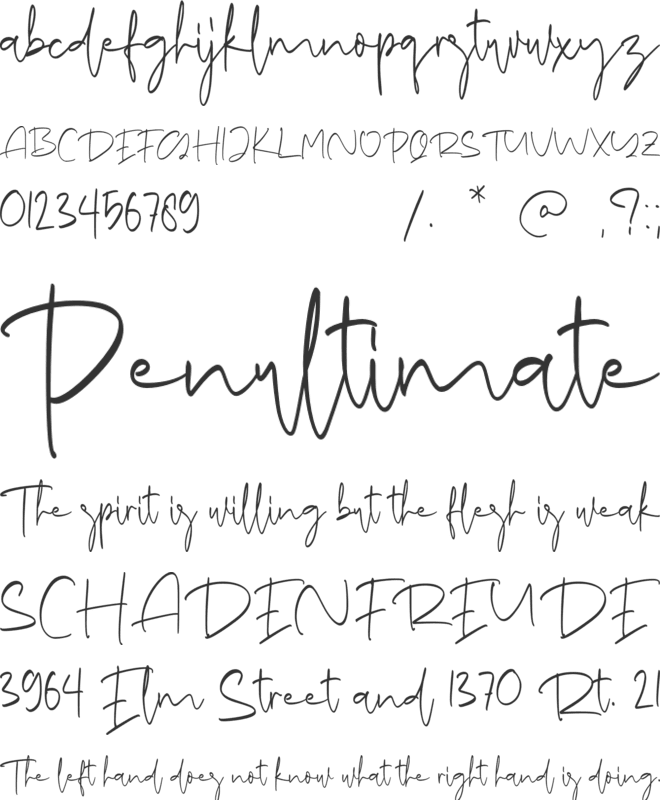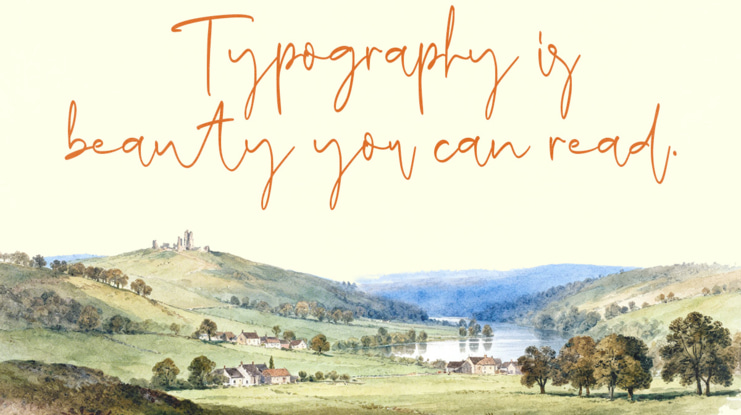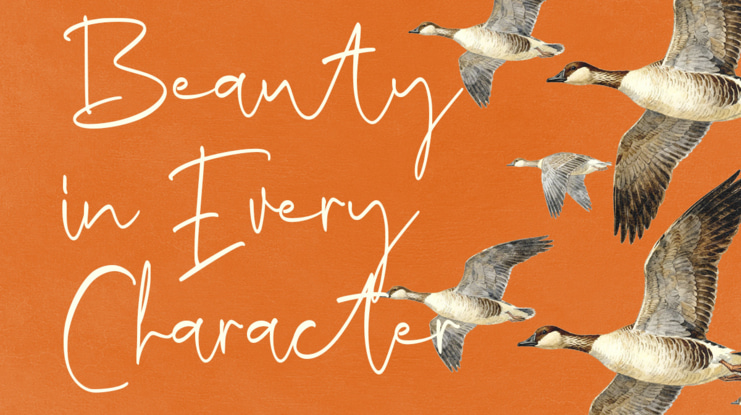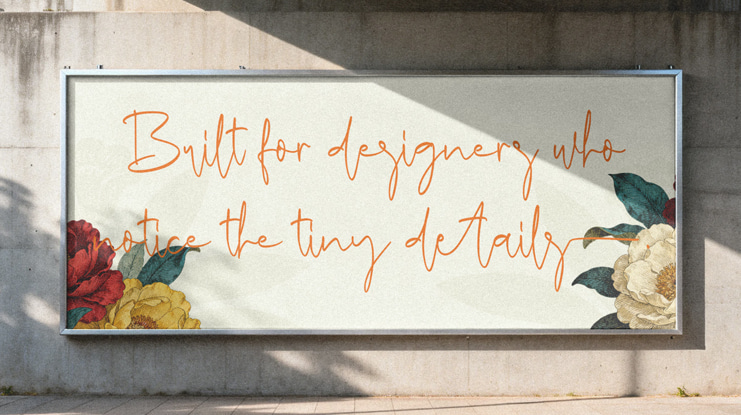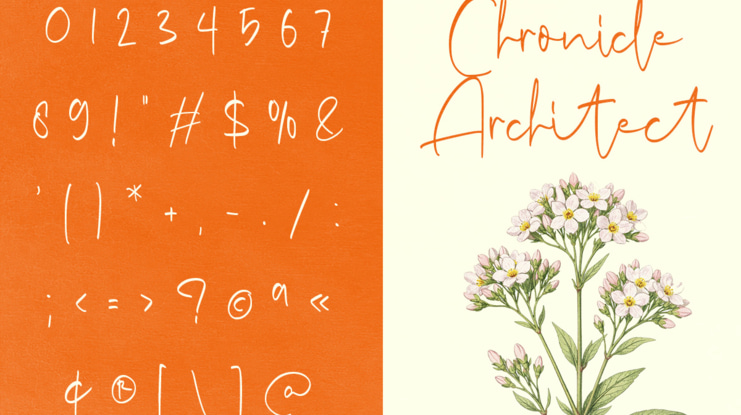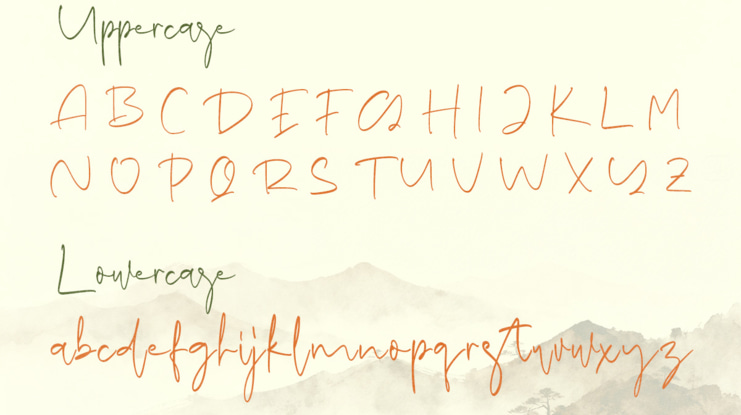
Resetta Milestone Font
Resetta Milestone - Handwritten Signature Script Font
Resetta Milestone is a modern handwritten signature script font designed to deliver elegant, natural, and stylish typography for professional creative projects. Inspired by authentic handwriting, this font features smooth flowing strokes and graceful letter connections that create a premium signature-style appearance.